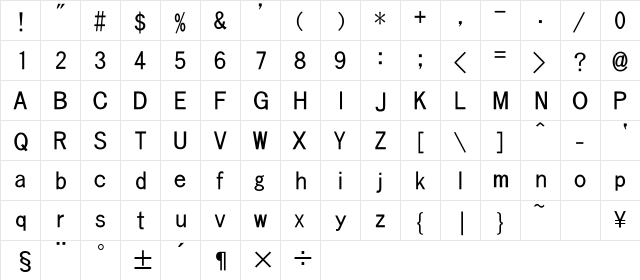
Mona Regular Font Preview
Mona Regular
Mona Regular Font Details
Design Context for Mona Typeface
Mona is a composed and adaptable typeface that performs quietly and consistently across a wide range of design contexts.